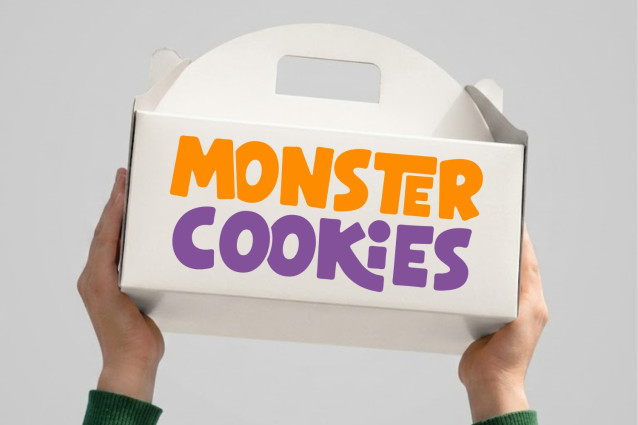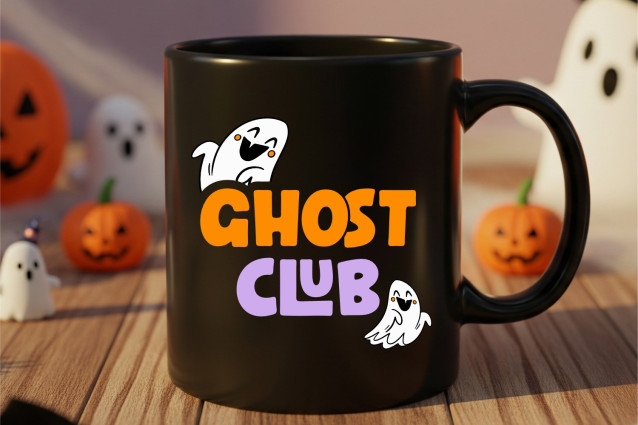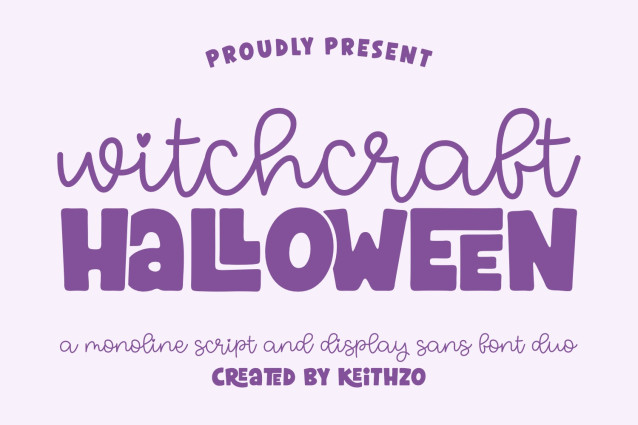
Witchcraft Halloween Font
Immerse your designs in the captivating mystery of the Witchcraft Halloween Font duo where spooky meets playful. This exemplary pairing showcases a whimsically streamlined monoline script and a stout, attention-grabbing display sans. Optimized to harmoniously merge the captivating charm of Halloween with a vibrant, contemporary flair, the Witchcraft Halloween font duo simplifies and revolutionizes typeface matching.
Whether it’s a ghostly mansion project or an endearing autumn array, this font duo effortlessly blend together, infusing your text with a delightful burst of character.